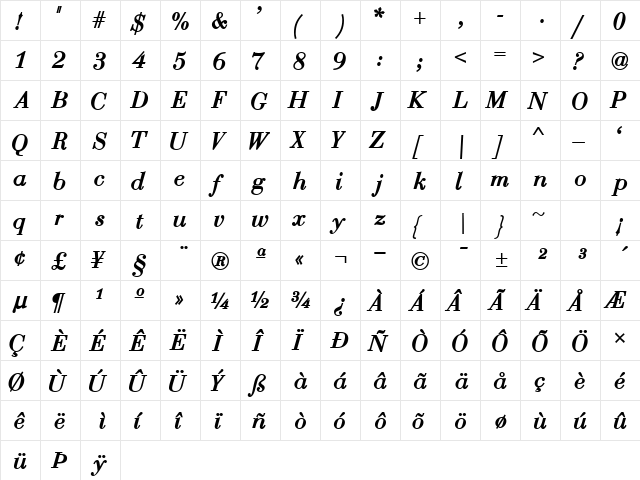
BodoniRecutCondensedSSK BoldItalic Font Preview
Design Context for BodoniRecutCondensedSSK Typeface
BodoniRecutCondensedSSK takes a measured approach to typography — its balanced proportions and neutral character make it a reliable workhorse for both digital and print work. Its italic angle brings a sense of urgency and motion to the letterforms. The heavy weight commands attention and anchors typographic hierarchies. Its narrow stance lets it pack a punch even in space-constrained designs.
Pro Tip: Use BodoniRecutCondensedSSK for emphasis, pull quotes, and subheadings where its slanted energy can add rhythm to the layout.